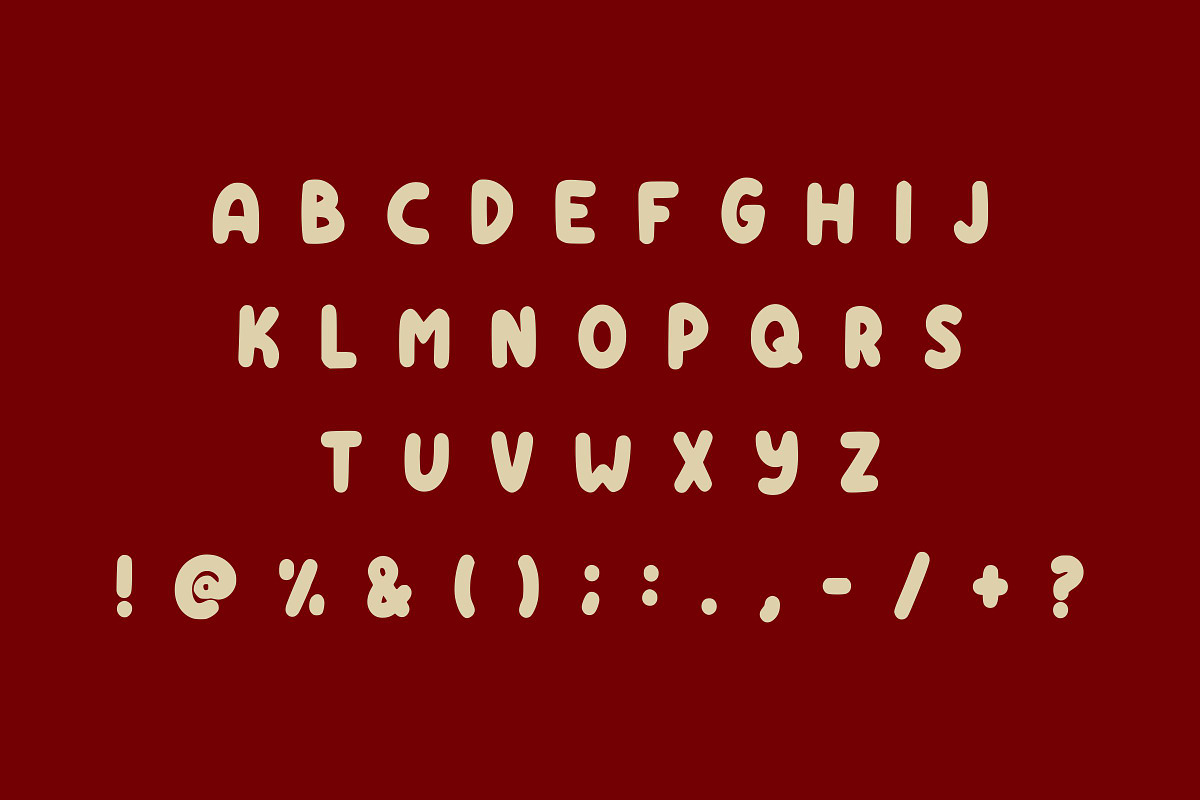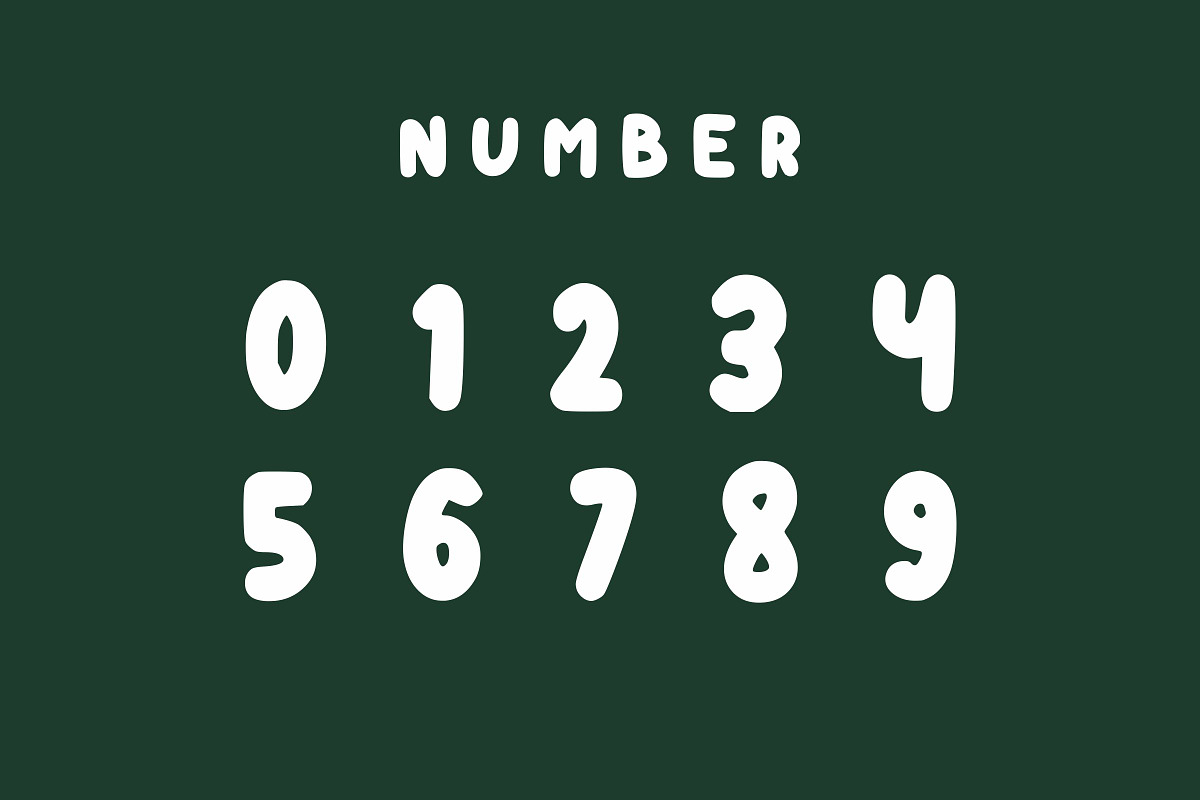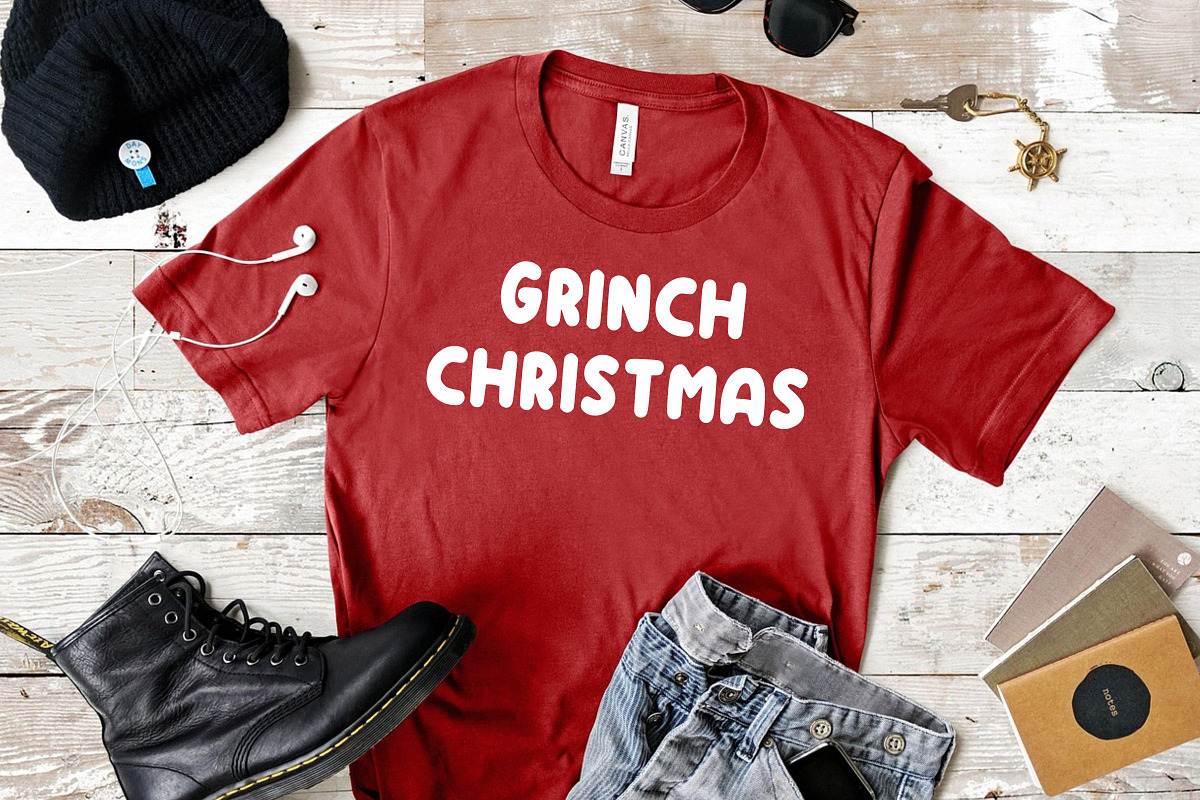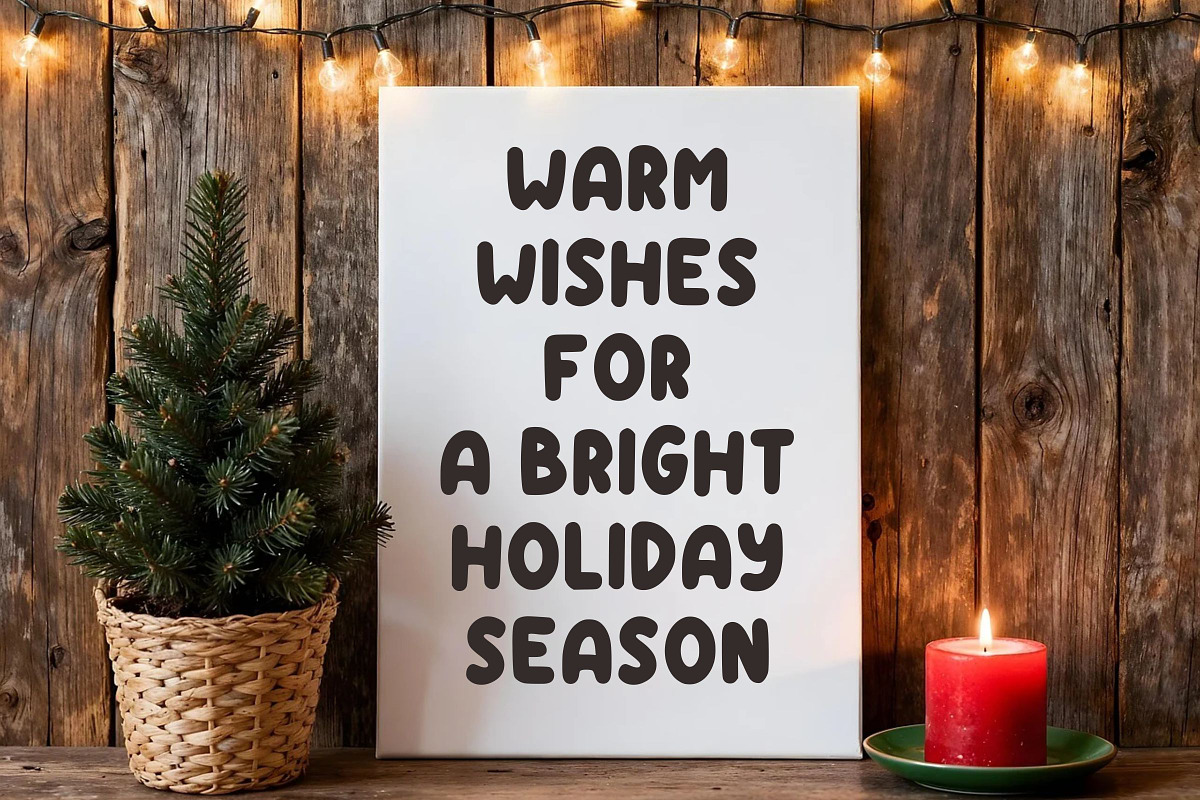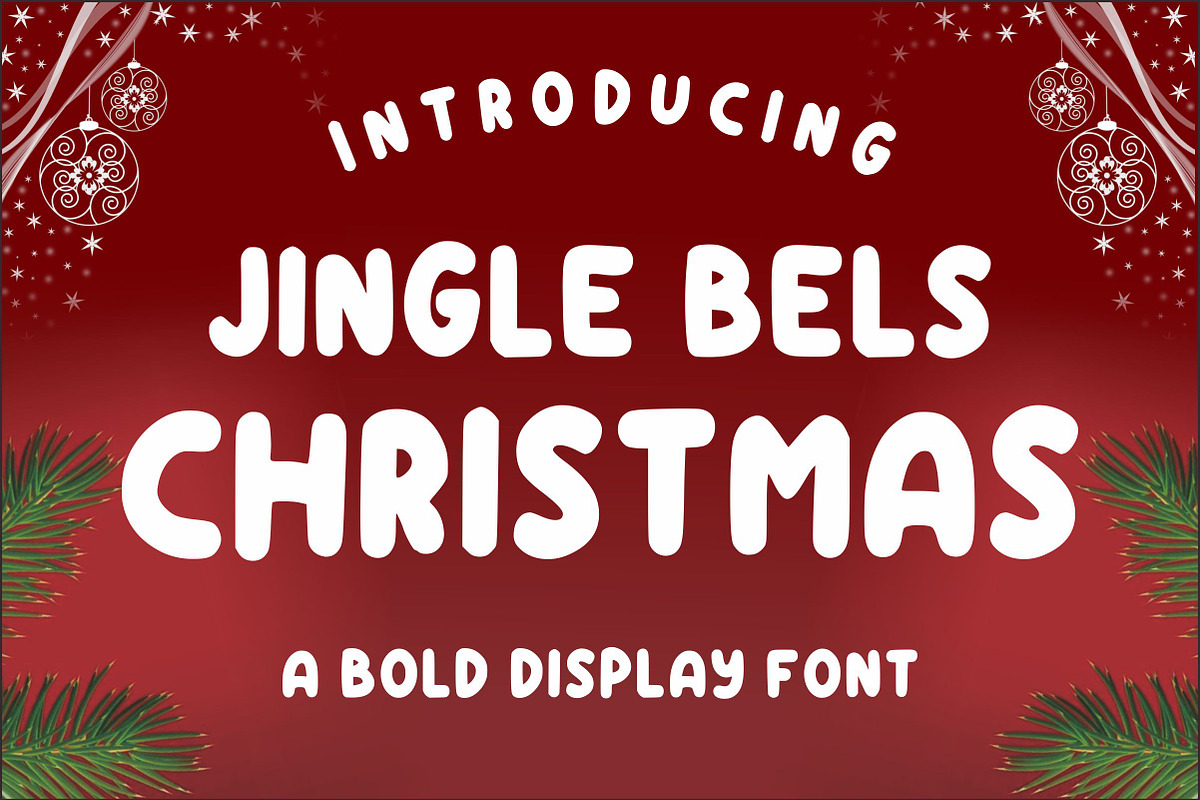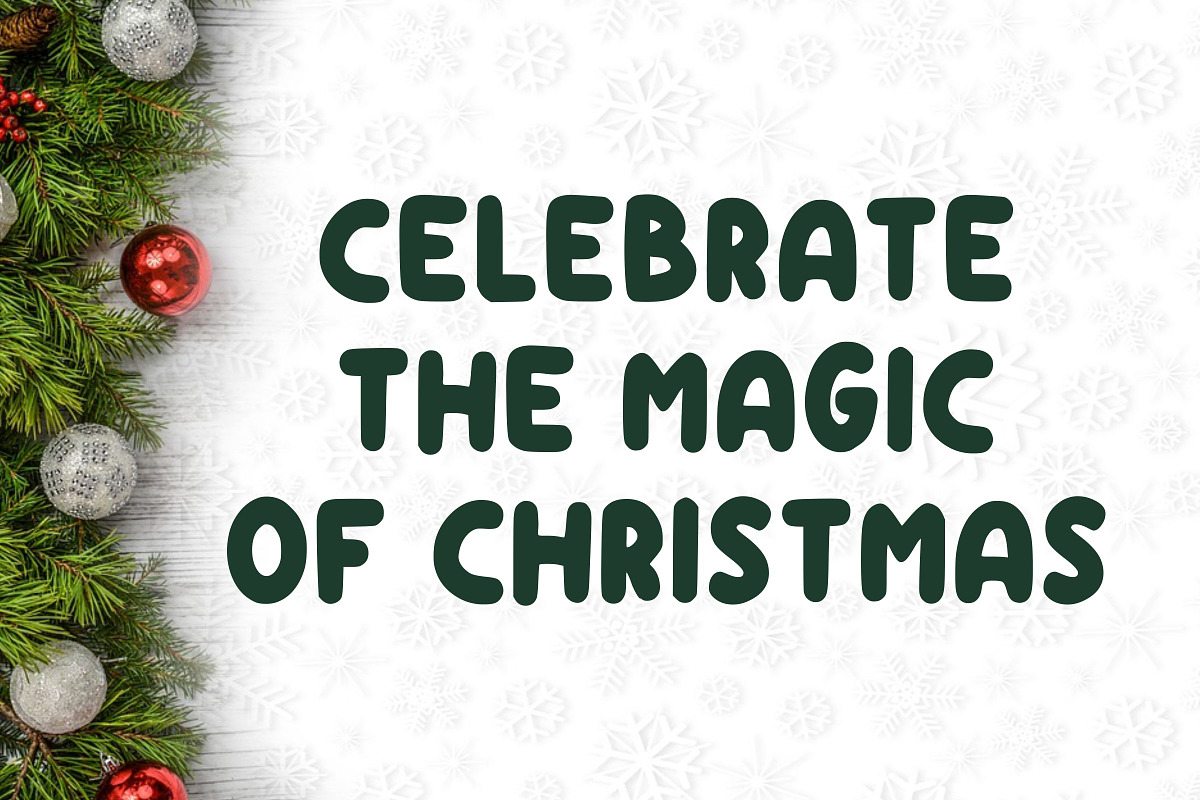
Jingle Bels Christmas
Jingle Bels Christmas is a cheerfully bold and incredibly rounded display font designed to capture the festive, playful spirit of the holiday season, making every word feel like a warm Christmas hug.
This wonderfully plump Jingle Bels Christmas typeface is defined by its extra-thick strokes and soft, friendly corners, exuding a distinct, almost cartoonish energy that is perfect for seasonal projects. The large, rounded forms provide excellent surface area for patterns, textures, or a snow-capped effect, enhancing its holiday appeal.
As a versatile display font, this delightful Jingle Bels Christmas font is essential for all Christmas-themed graphics, from retail promotions and greeting cards to holiday party invitations, children’s products, and seasonal craft projects where a bold, joyful aesthetic is paramount.